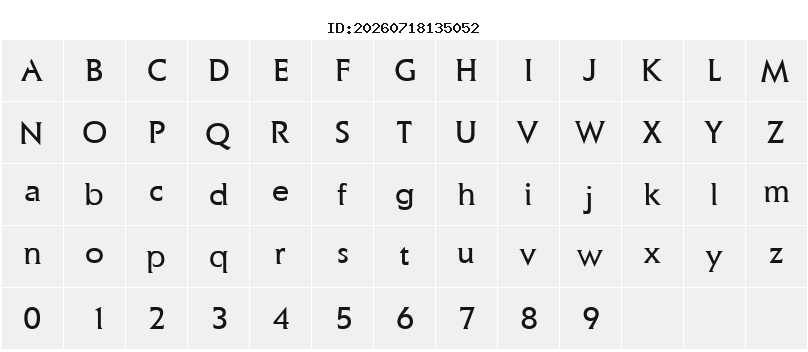
About Caprica.ttf
Caprica.ttf is a modern, elegant sans-serif font designed for ultimate readability and visual harmony. Perfect for branding, headlines, web design, and print materials.